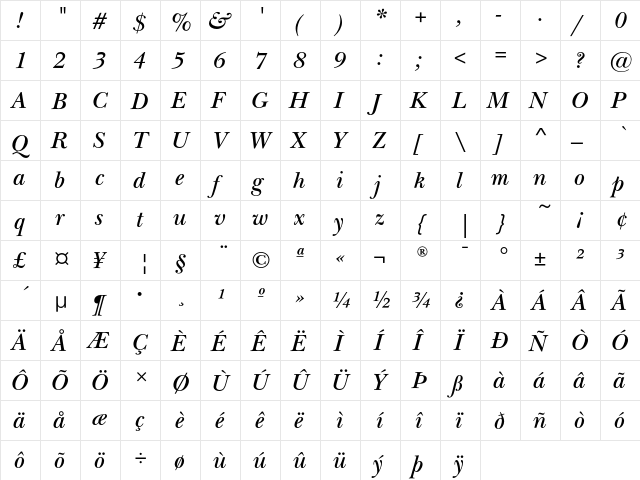
NewBaskervilleEF SemiBoldIta
Design Context for NewBaskervilleEF Typeface
NewBaskervilleEF offers clean, dependable letterforms without strong stylistic allegiance, making it a practical choice for designers who need flexibility. The heavy weight commands attention and anchors typographic hierarchies.